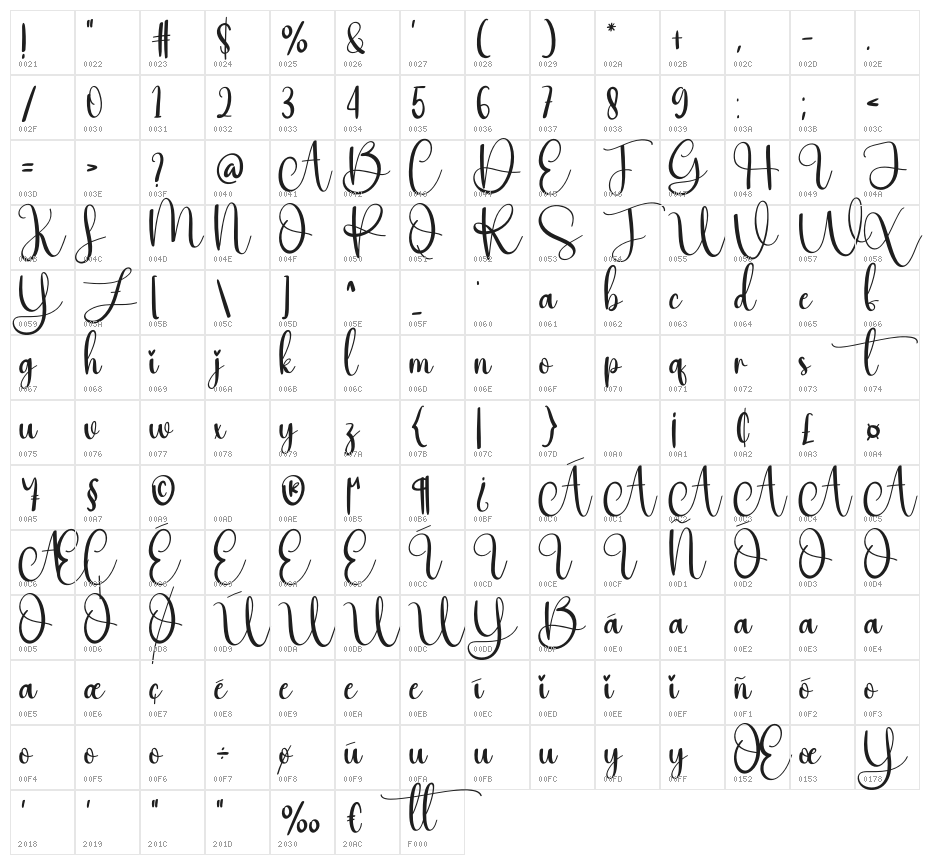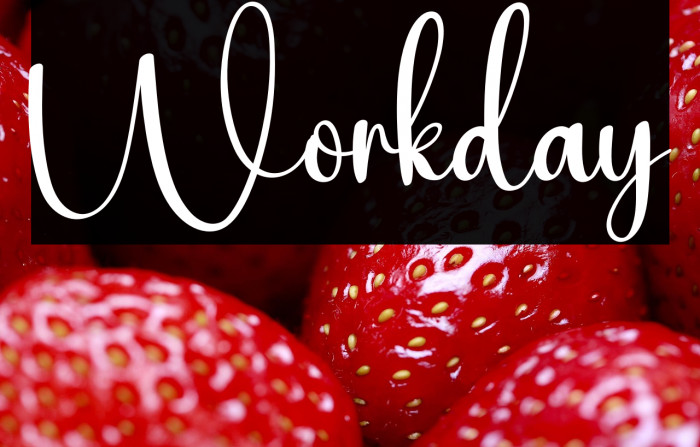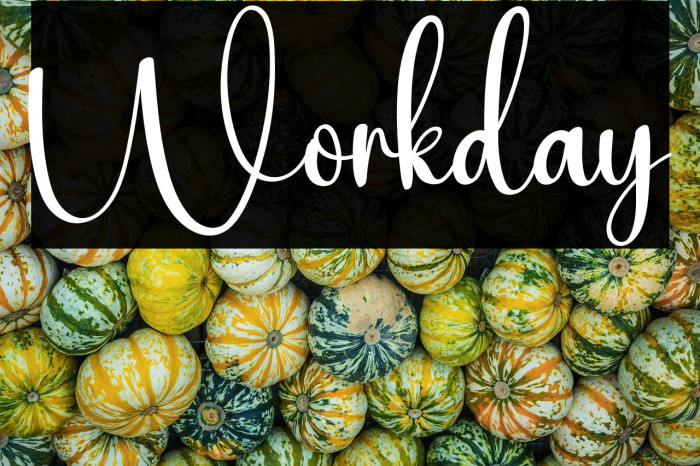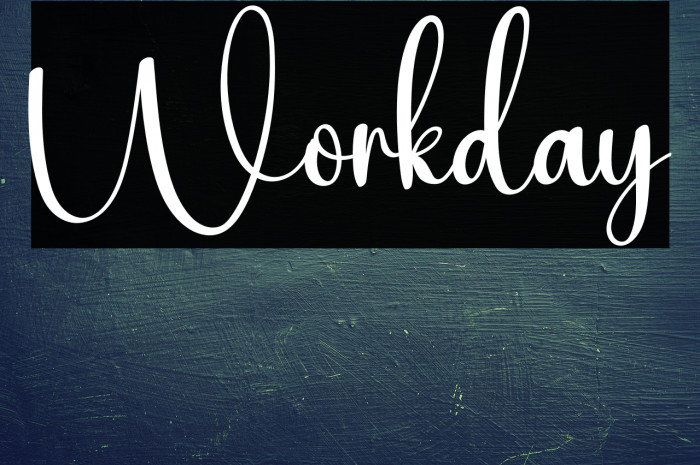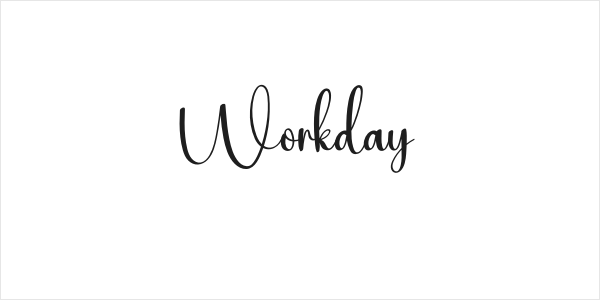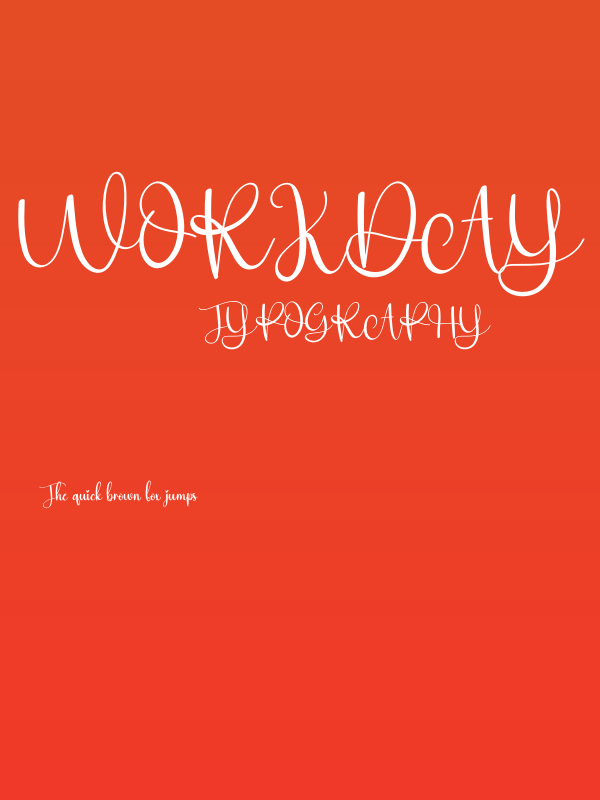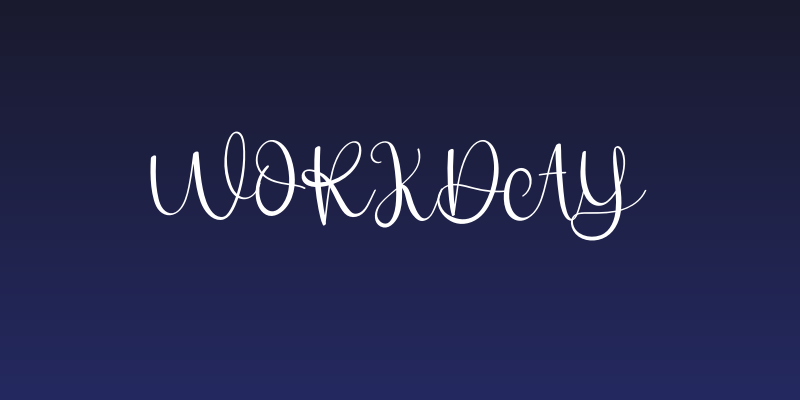
Workday Font
Workday Description
A playful and flowing handwritten script font with a modern touch, featuring connected letters and varying stroke widths.
| Overall Style | Modern, Decorative |
| Use Case | Logos, Headlines, Invitations |
| Proposed Projects | Greeting cards, invitations, personal branding. |